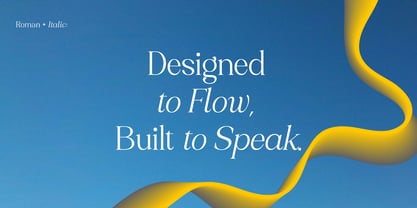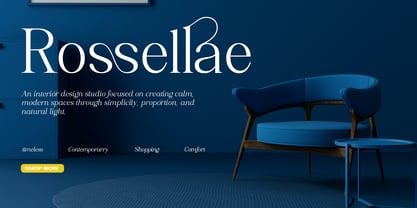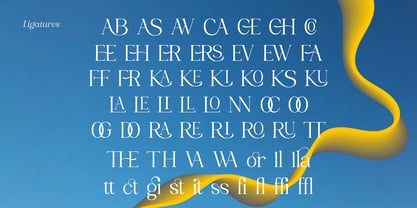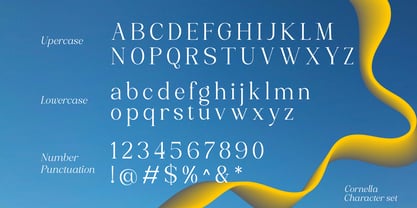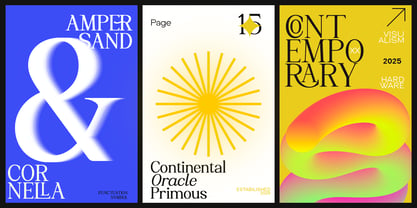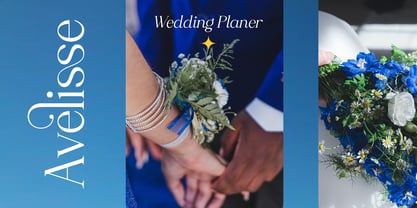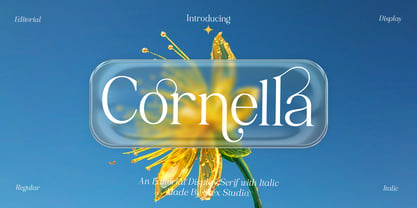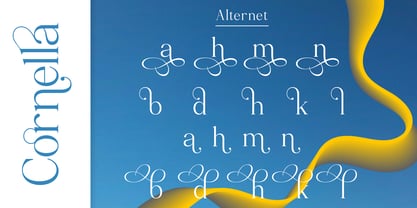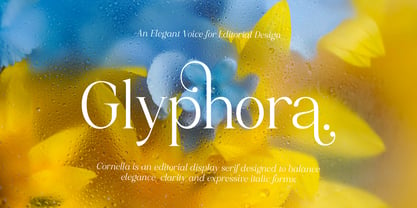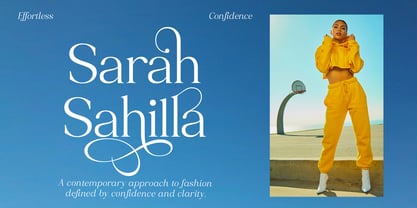
Cornella
Cornella is an elegant editorial display serif designed to bring sophistication, clarity, and character to modern visual storytelling. Inspired by classic typography with a contemporary touch, Cornella blends graceful curves, refined contrast, and expressive italic forms—making it a perfect choice for high-end editorial and display use. This typeface shines in fashion editorials, magazine layouts, branding, luxury packaging, wedding designs, and expressive headlines. Its regular style offers clean readability, while the italic adds a dramatic, fluid accent for emphasis and elegance. Carefully crafted with balanced proportions and subtle details, Cornella delivers a timeless aesthetic that feels both artistic and modern—ideal for designers seeking a serif that stands out without losing its refinement. Perfect for: Editorial & magazine design Branding & logo design Luxury & fashion projects Wedding & event stationery Headlines, quotes, and display text Features: Regular & Italic styles Elegant editorial serif character Smooth curves & refined contrast Suitable for modern and classic designs